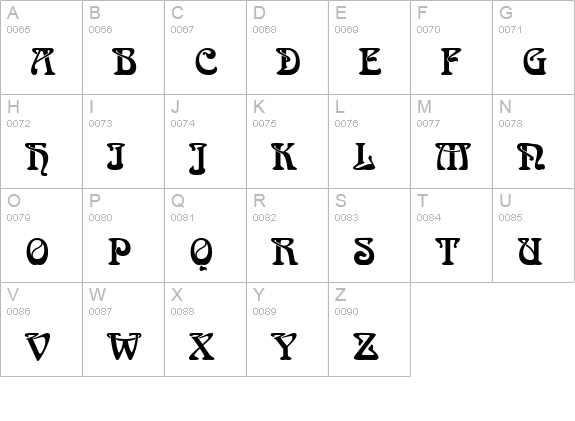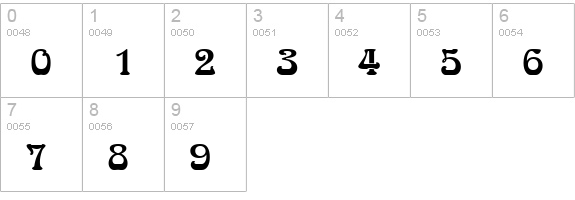
Jugendstil-Regular Font Details
Jugendstil-Regular is the standard, neutral variant in the Jugendstil typeface family \xE2\x80\x94 well suited to general body text, paragraphs, and standard typographic work.
Jugendstil-Regular is a captivating font that beautifully captures the essence of the Art Nouveau movement with its elegant and intricate design. This font exudes a sense of sophistication and charm, making it perfect for various design projects such as invitations, posters, and branding materials. With its flowing lines and decorative elements, Jugendstil-Regular adds a touch of vintage flair to any design. Its versatility allows it to be used in both modern and classic settings, making it a timeless choice for designers looking to make a statement. The best part about Jugendstil-Regular is that it is free to download at FontsMarket.com. This means that you can easily access this stunning font and incorporate it into your projects without any cost. Don't miss out on the opportunity to enhance your designs with Jugendstil-Regular and bring a touch of Art Nouveau elegance to your work.